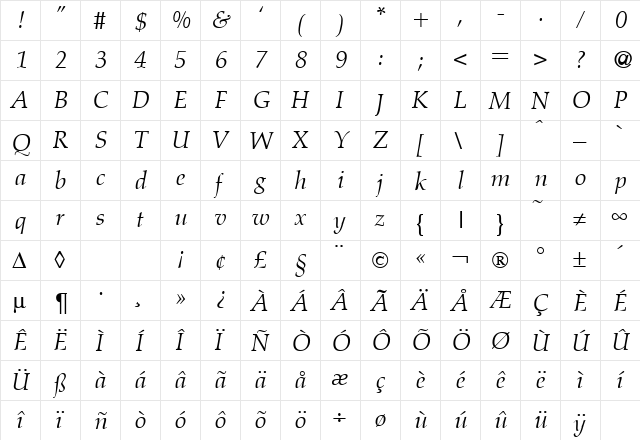
Aldebaran RegularItalic
Design Context for Aldebaran Typeface
Aldebaran is a composed and adaptable typeface that performs quietly and consistently across a wide range of design contexts. Its italic angle brings a sense of urgency and motion to the letterforms.
Pro Tip: Use Aldebaran for emphasis, pull quotes, and subheadings where its slanted energy can add rhythm to the layout.